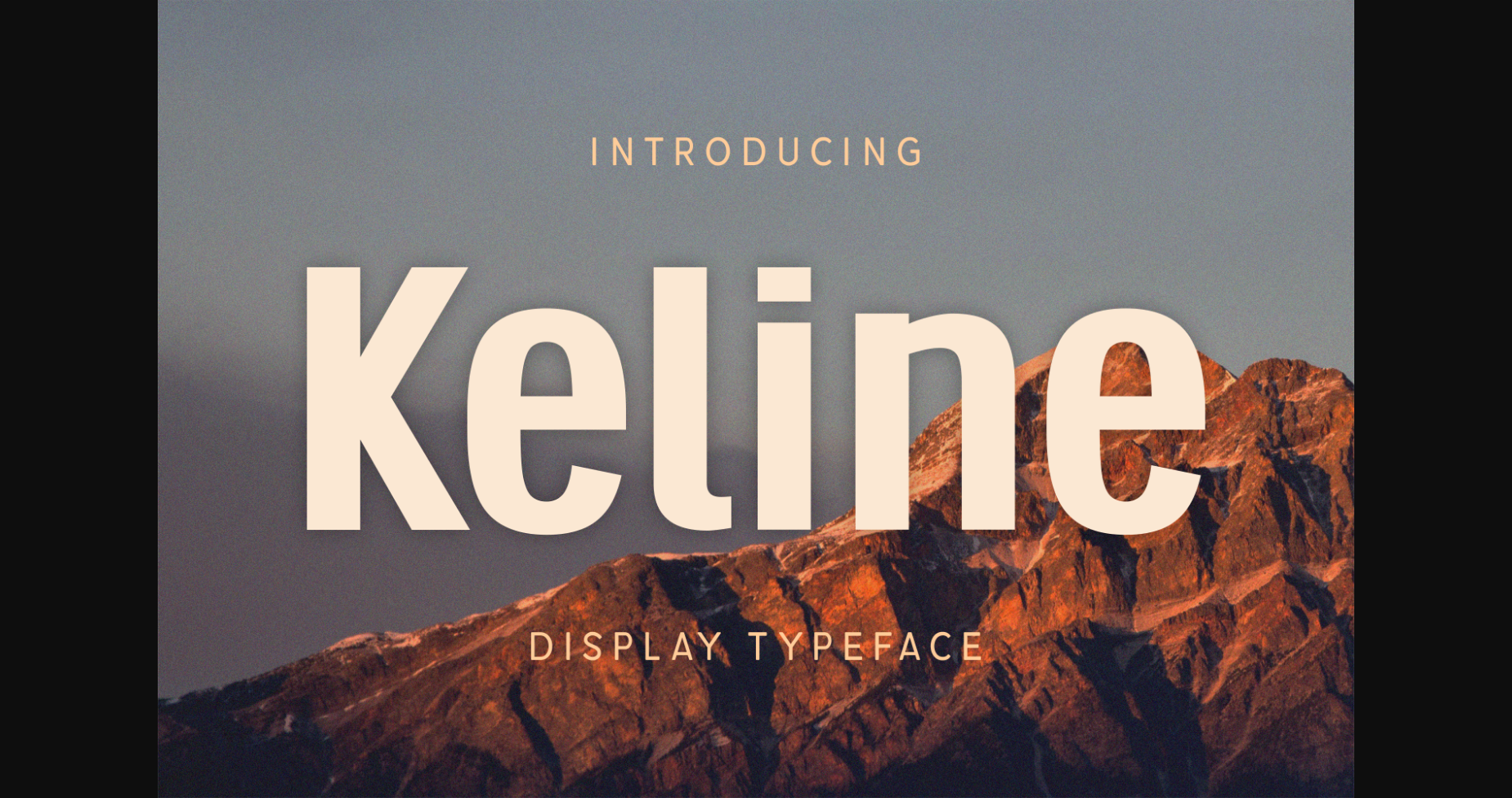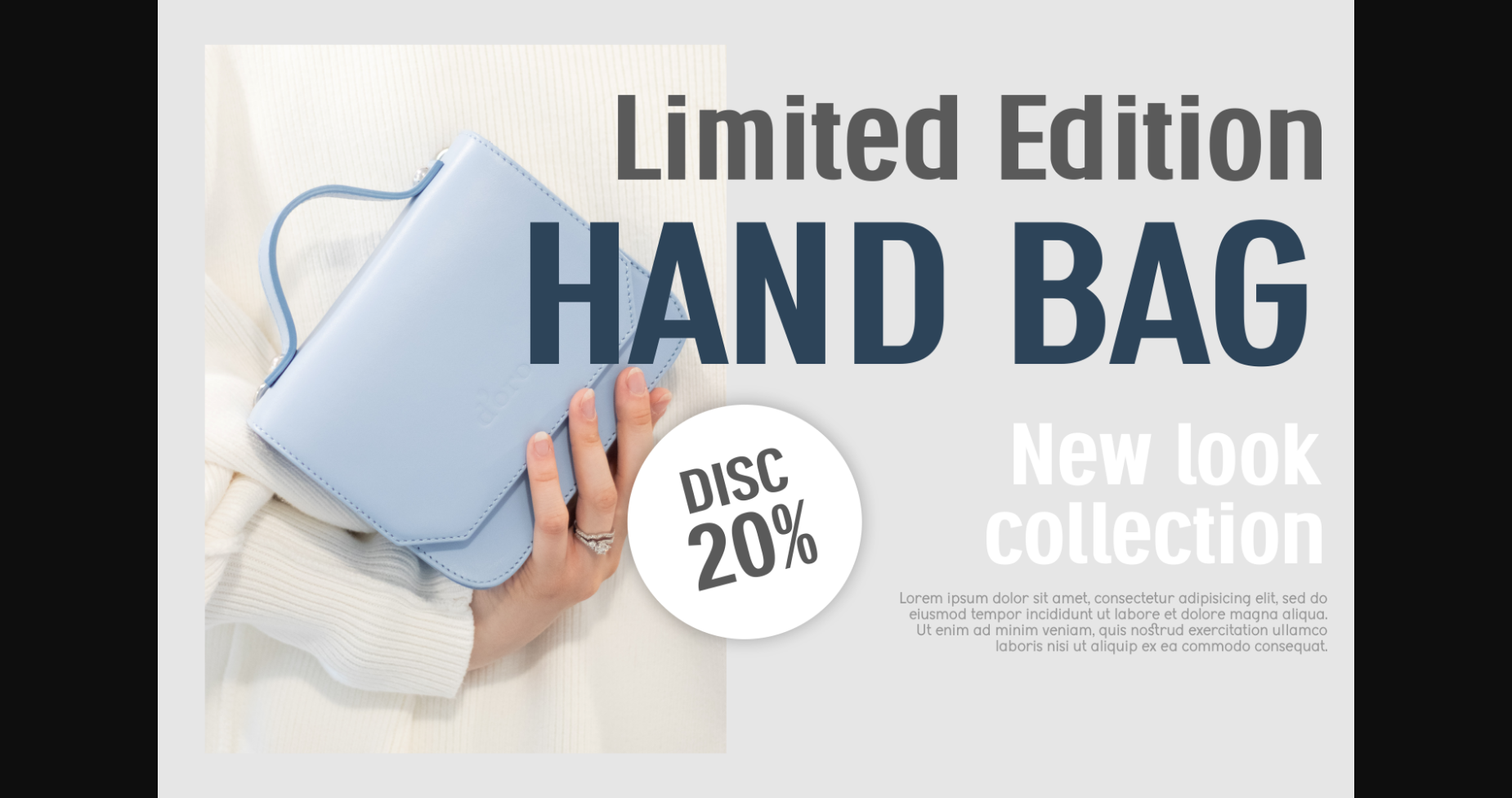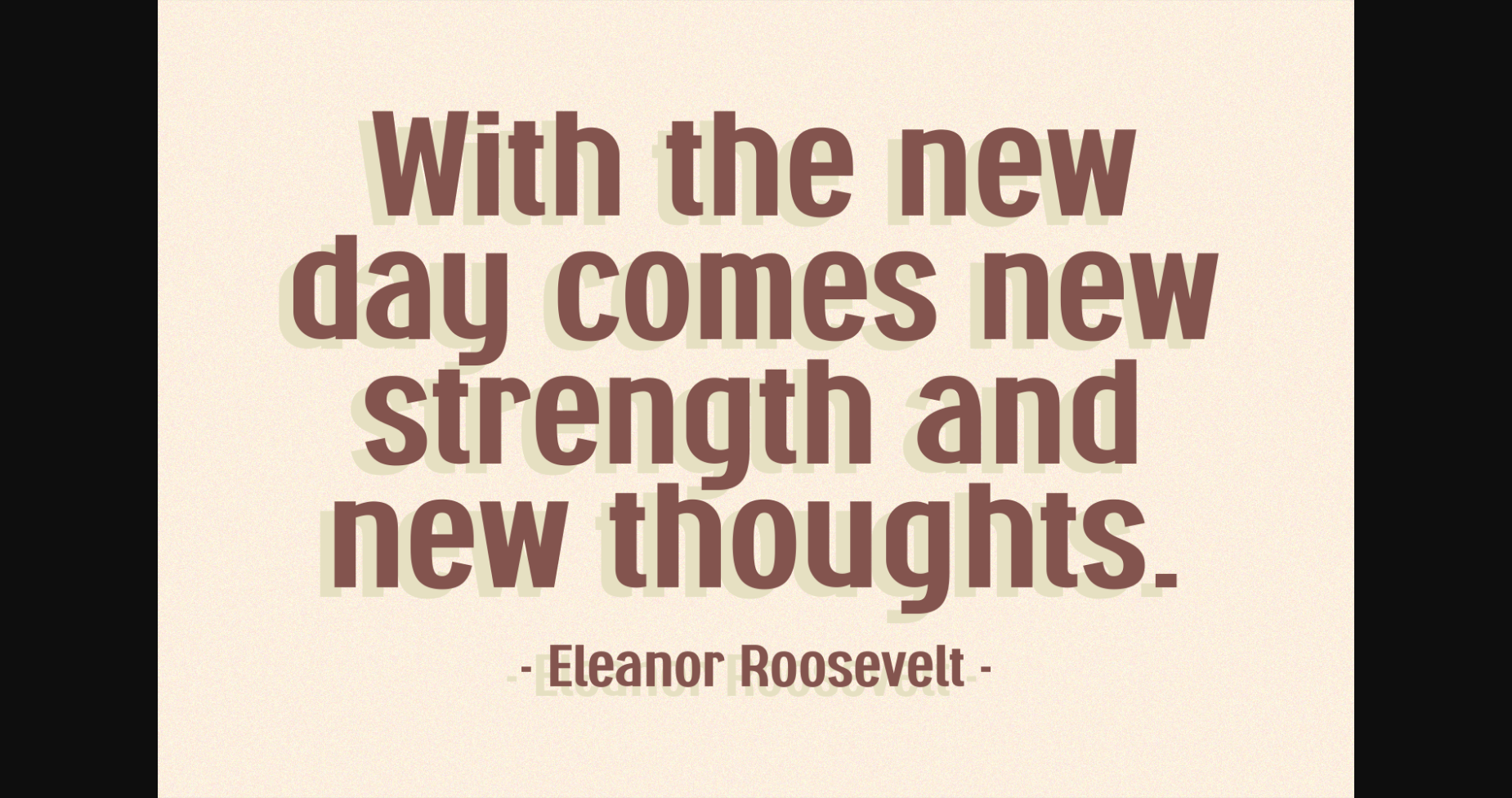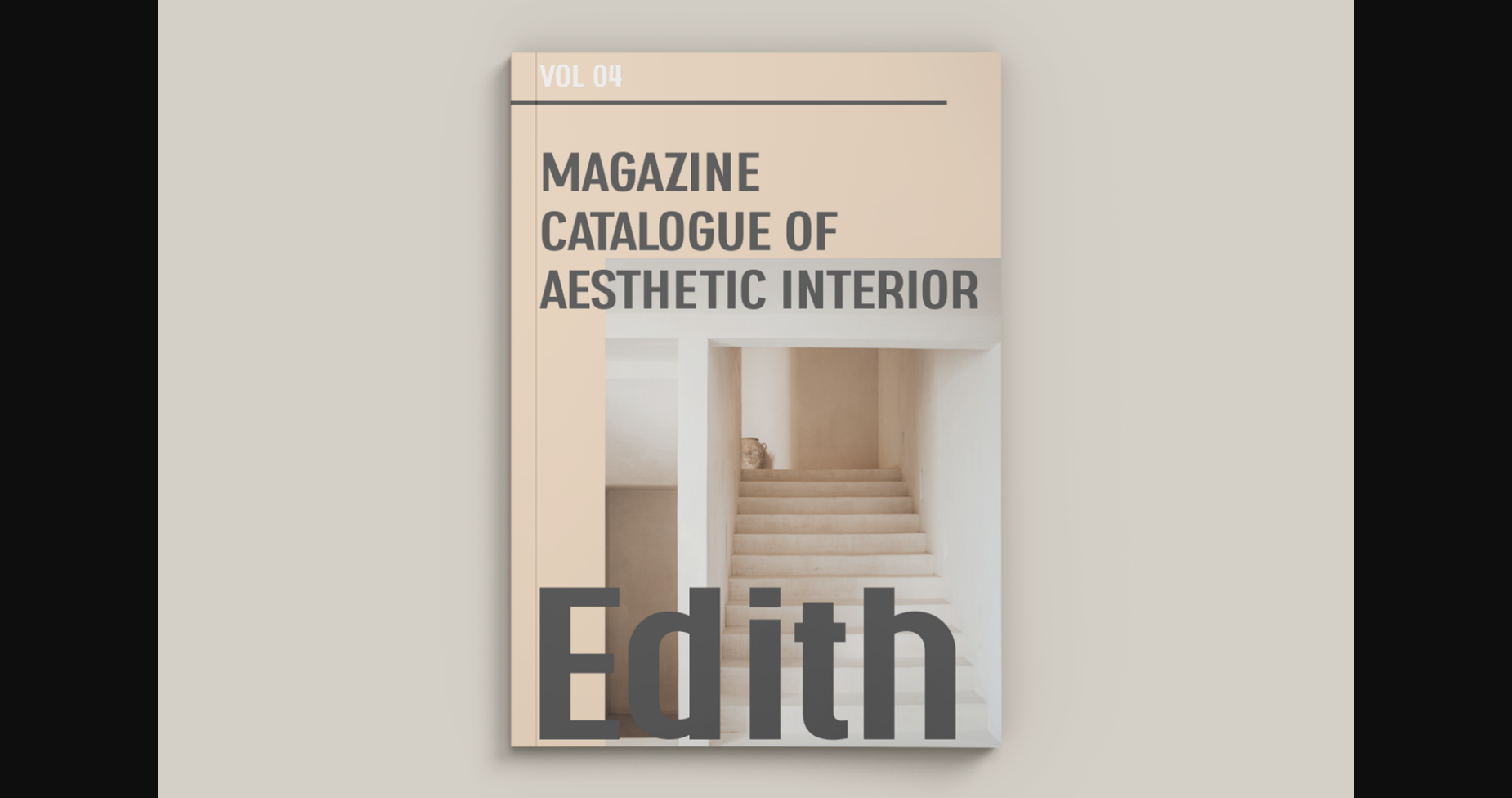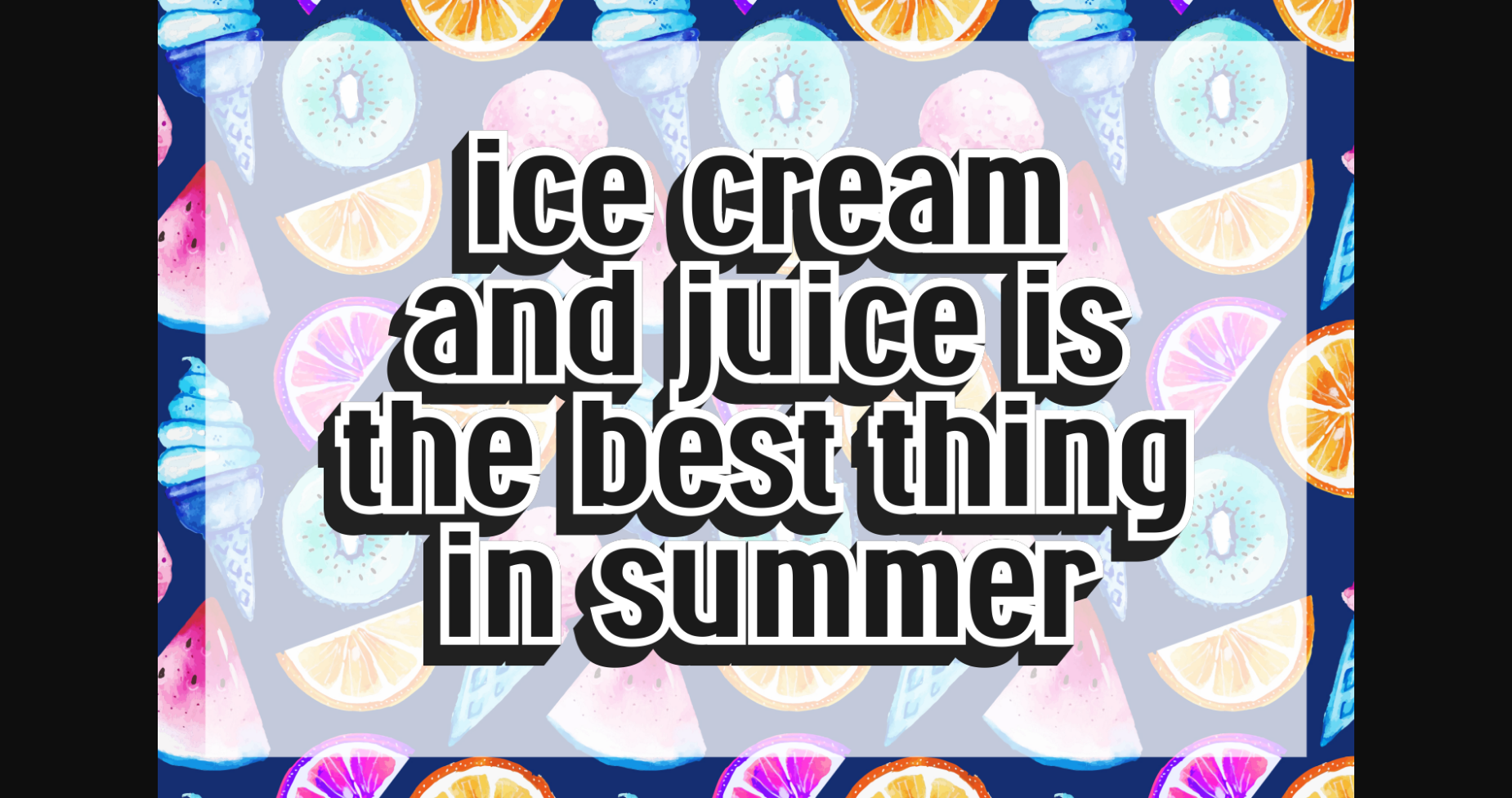
About Keline Font
Keline is a clear and solemn sans serif font, perfect for items that need impeccable typography. Use this splendid typeface to add an exquisite touch to your designs.